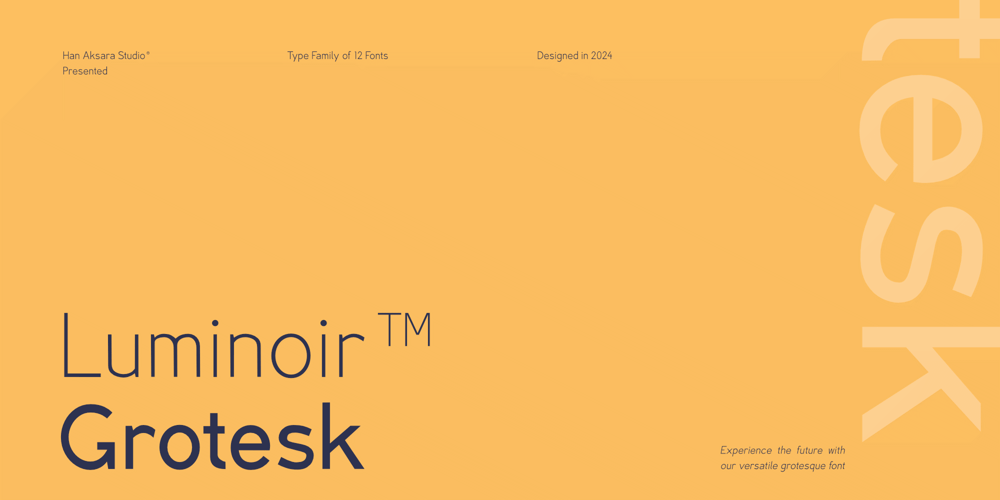
HA Luminoir Sans
HA Luminoir Sans font
HA Luminoir Sans Font Family was designed by Darul Qutni and published by Hanaksara Studio. HA Luminoir Sans contains 12 styles and family package options. Introducing Luminoir Grotesk, a versatile sans-serif font blending modernity with elegance. Its subtly tilted stem adds a futuristic touch while maintaining classic sans-serif essence. One of Luminoir Grotesk’s distinctive features is its subtly tilted stem when joined with other letter parts, adding a futuristic edge without compromising the essence of a classic sans-serif font. This unique characteristic creates a sense of dynamism and innovation, making Luminoir Grotesk a perfect choice for forward-thinking design projects. Perfect for body text, posters, logos, and more. The font family includes six weights from Light to Extra Bold, with oblique styles for added creativity.With 216 glyphs and future updates planned, it’s set to become even more comprehensive.Luminoir Grotesk supports 65 languages, catering to a global audience. Ideal for forward-thinking design projects, its sleek design ensures readability across various mediums and sizes. Explore the luxury and sophistication of Luminoir Grotesk today.